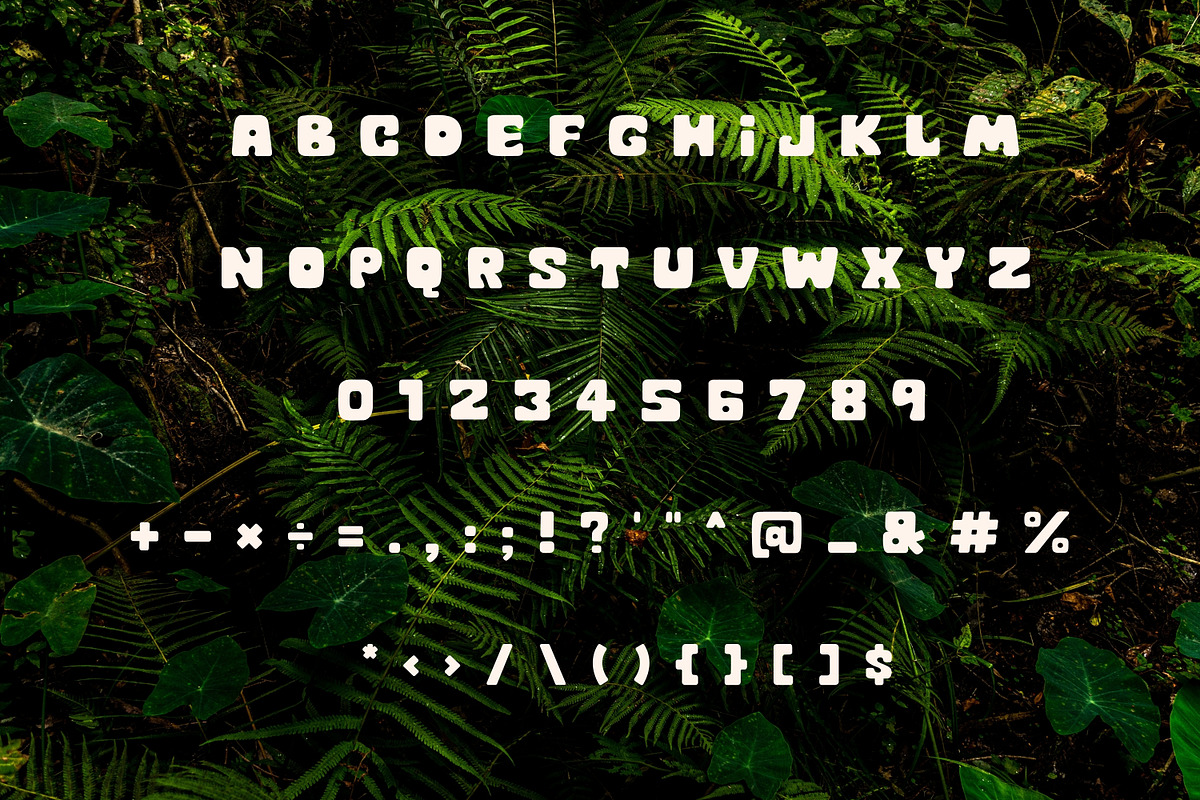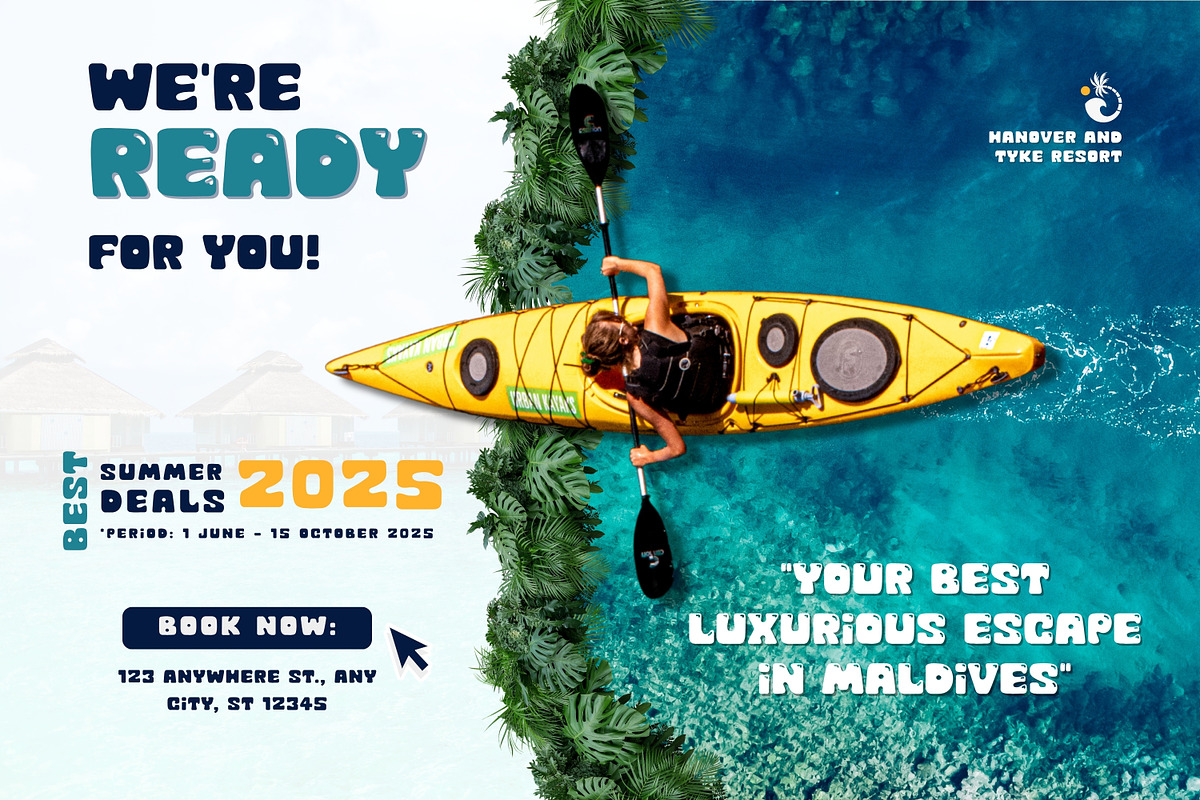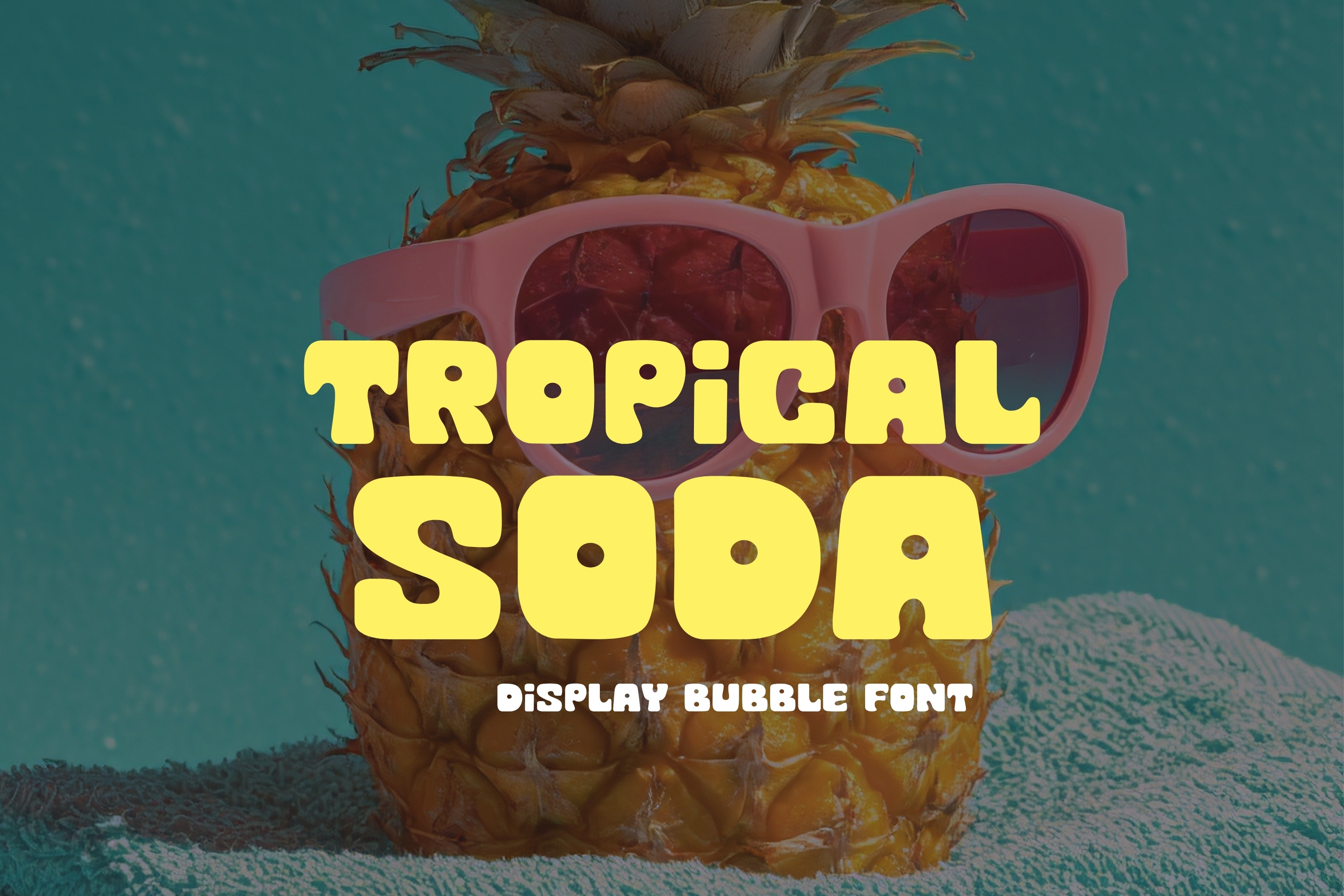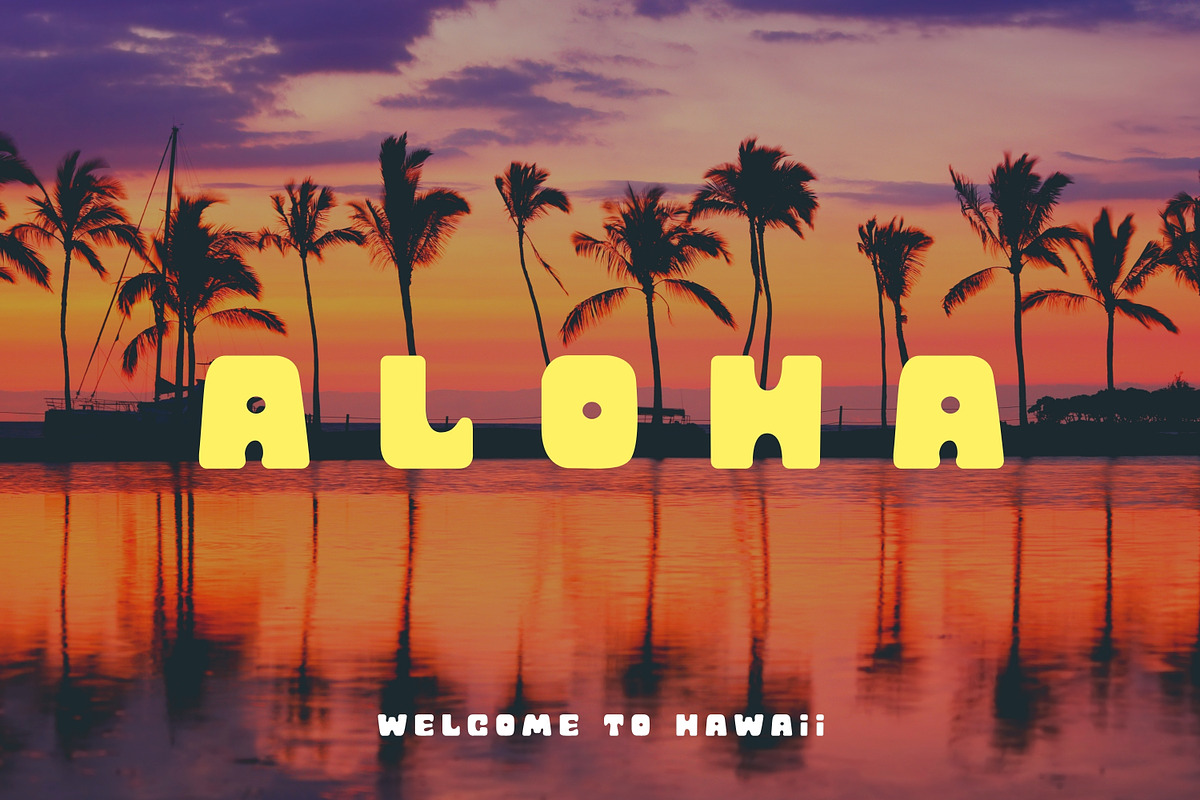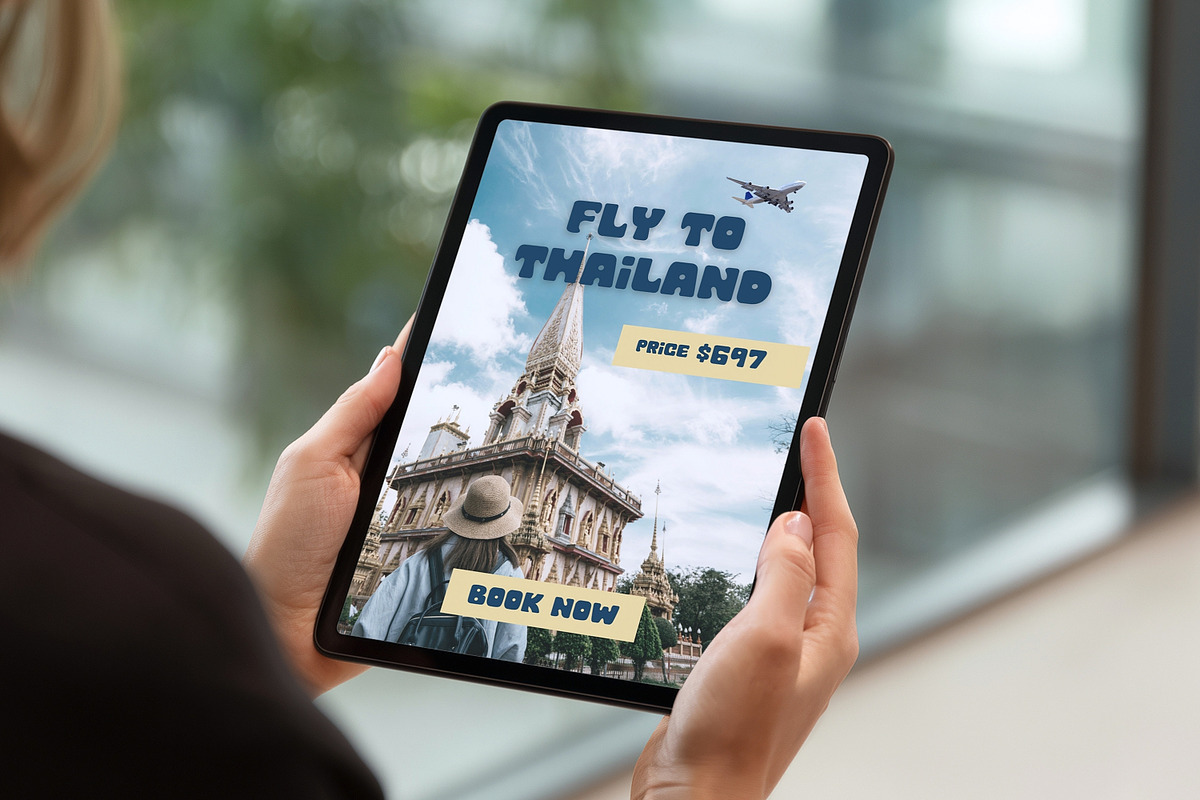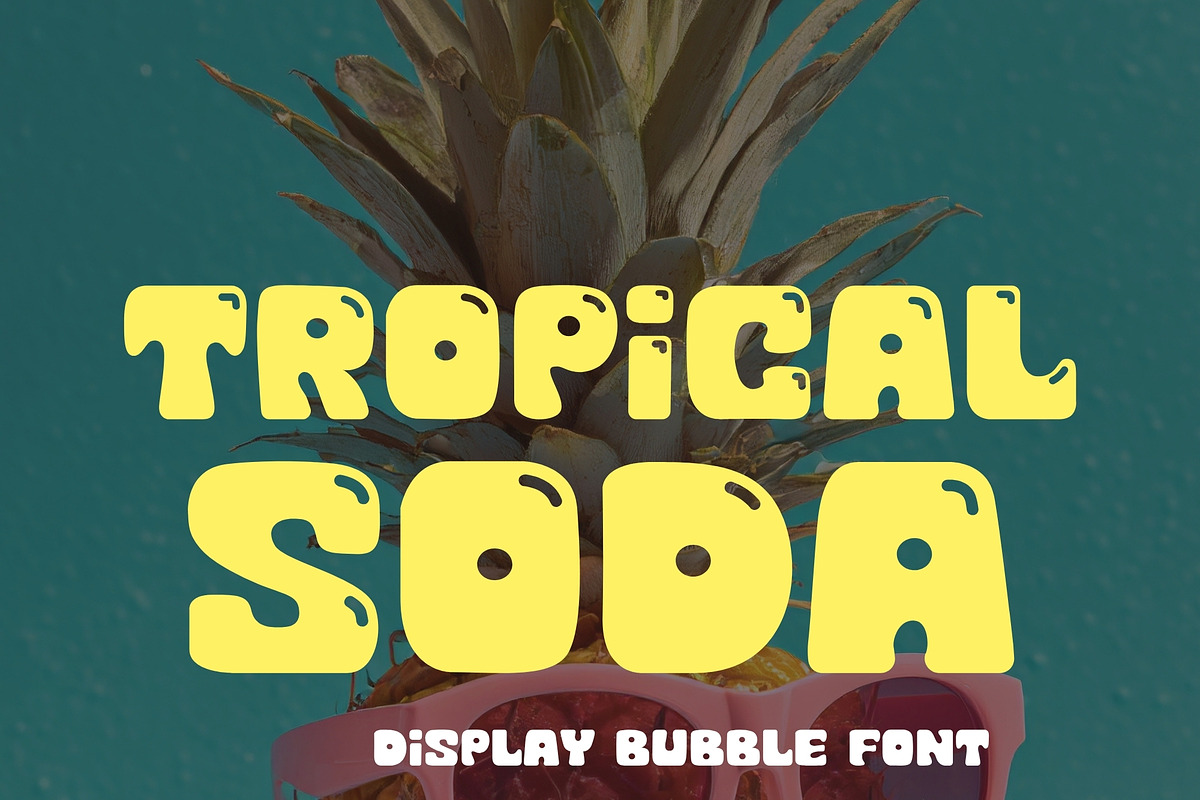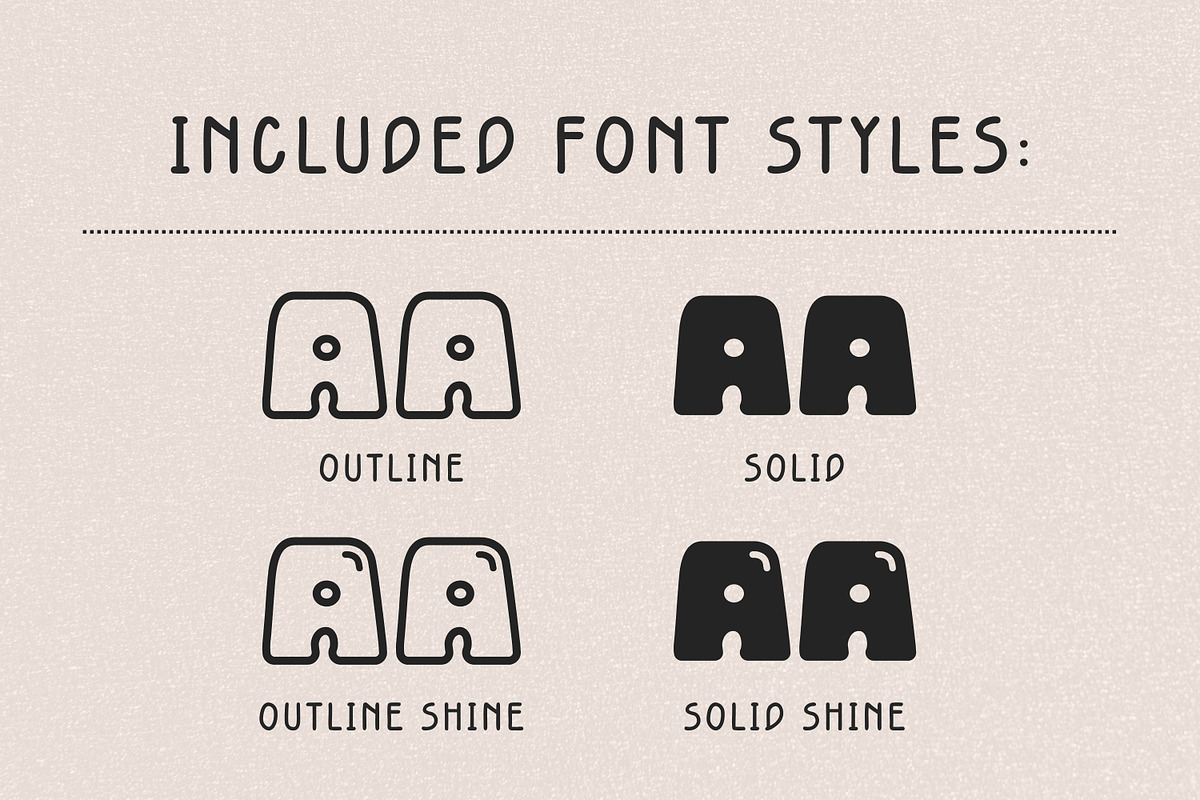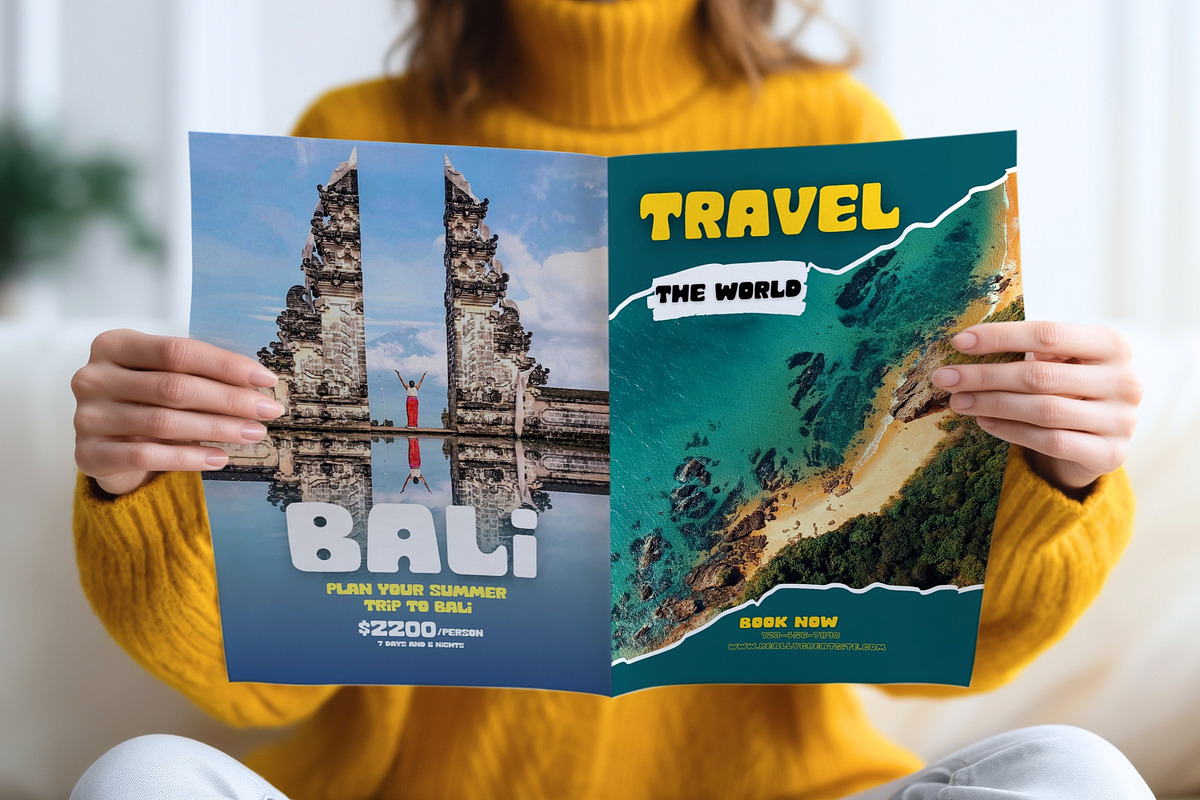
Retro Display Font-Tropical Soda
✨ Bring fun summer vibes to your creative projects with Tropical Soda, a bold and playful bubble display font inspired by tropical vacations, retro aesthetics, and Y2K design trends. Perfect for eye-catching branding, posters, t-shirts, packaging, social media graphics, stickers, and more.This font features chunky rounded letters with a cheerful tropical personality that instantly makes designs feel fun, vibrant, and energetic.